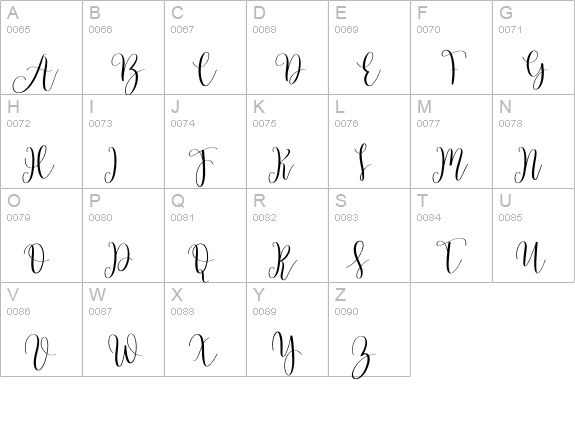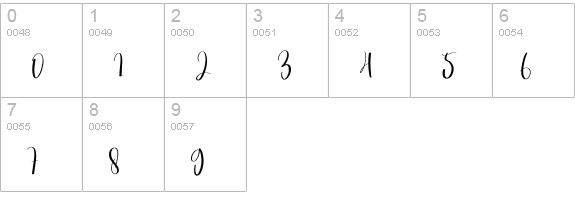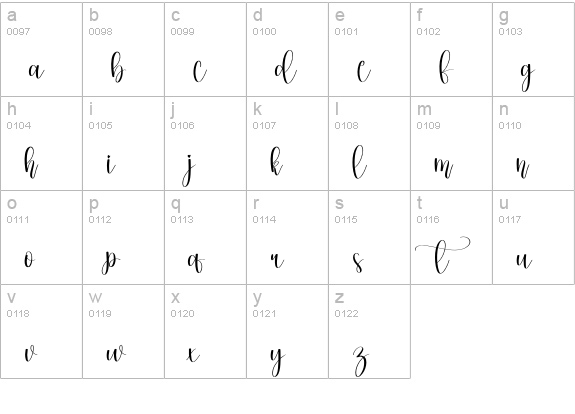
Enchanting Font Details
Enchanting is a free for personal use font in the Script > Handwritten category, designed by scratchones. It has been downloaded 7 times and is available for Windows, Mac and Linux.
Introducing the Enchanting font, a whimsical and captivating typeface that will add a touch of magic to your design projects. This enchanting font features elegant curves and intricate details that will transport your audience to a world of wonder and fantasy. Whether you're creating invitations, greeting cards, or branding materials, Enchanting font is sure to make a lasting impression.